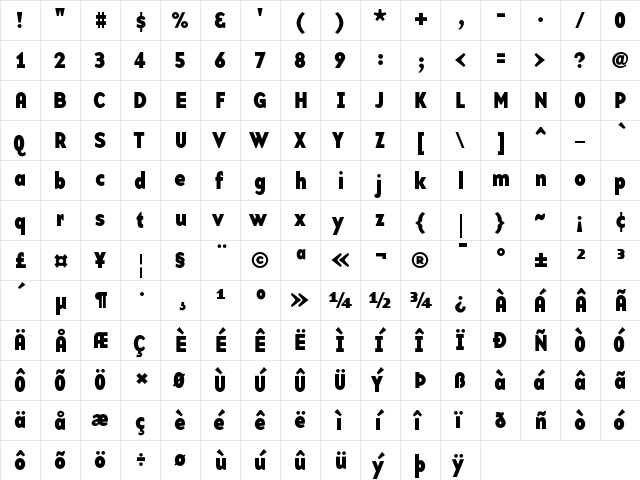
BaseTwelveSansB Roman Font Preview
BaseTwelveSansB Roman
BaseTwelveSansB Roman Font Details
Design Context for BaseTwelveSansB Typeface
BaseTwelveSansB is a composed and adaptable typeface that performs quietly and consistently across a wide range of design contexts.